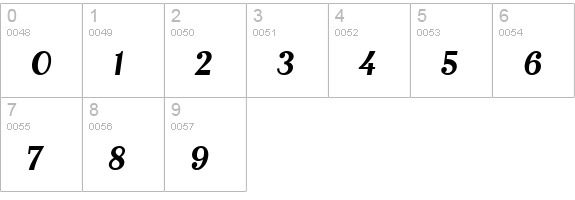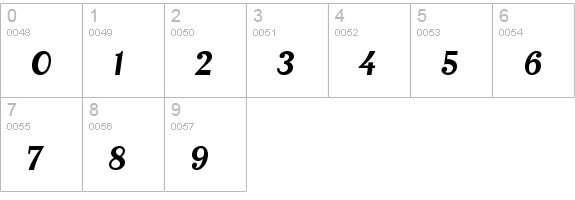
MatrixScriptBoldLining Bold Font Details
MatrixScriptBoldLining Bold is a strong, high-contrast variant in the MatrixScriptBoldLining typeface family \xE2\x80\x94 well suited to headlines, attention-grabbing titles, and strong calls-to-action.
MatrixScriptBoldLining Bold font is a captivating and modern typeface that exudes a sense of strength and sophistication. Its bold lines and sharp angles make it perfect for adding emphasis and impact to your design projects. This font is ideal for creating eye-catching headlines, logos, and posters that demand attention. The best part is that MatrixScriptBoldLining Bold font is available for free download at FontsMarket.com. It offers a valuable resource for designers, students, and creatives looking to elevate their work with a bold and striking typeface. Don't miss out on the opportunity to enhance your projects with this sleek and powerful font that is just a click away. Download MatrixScriptBoldLining Bold today and make a bold statement with your designs.